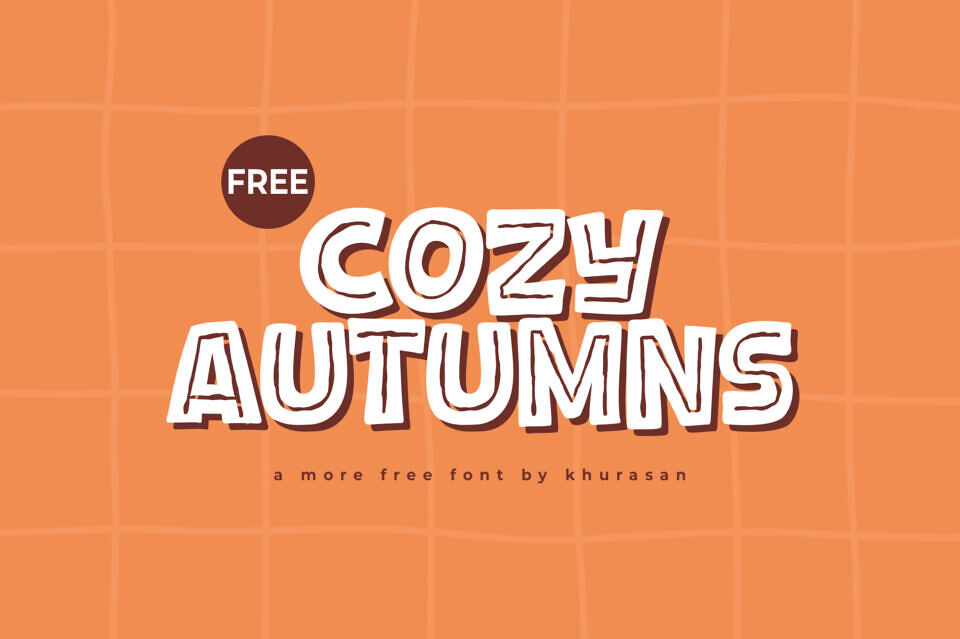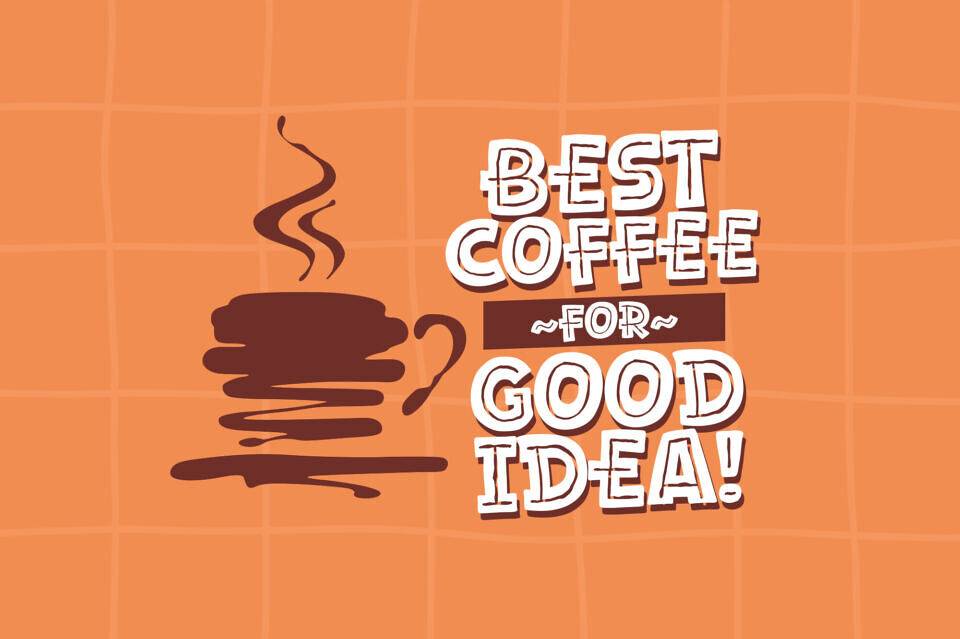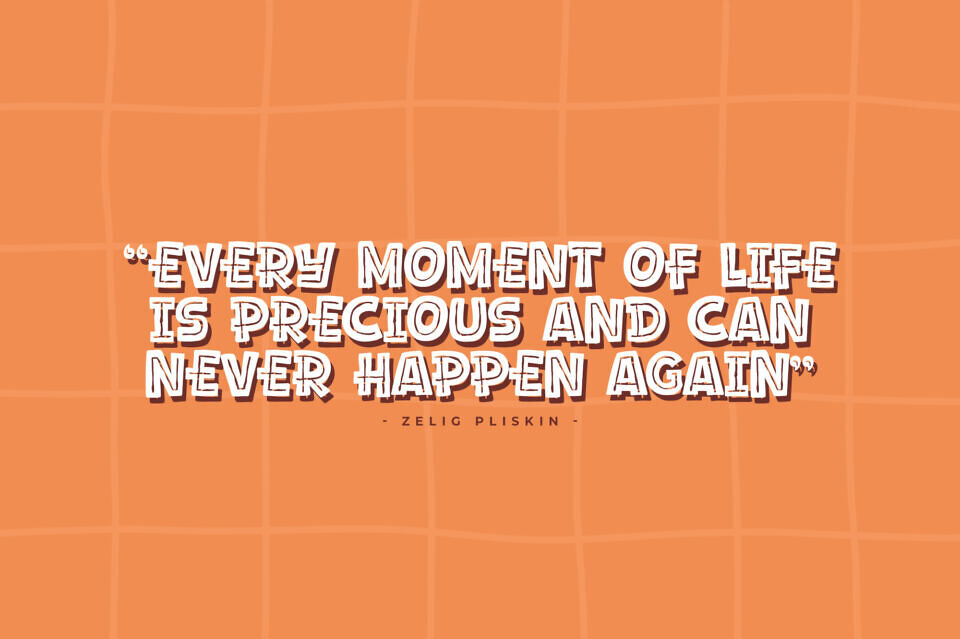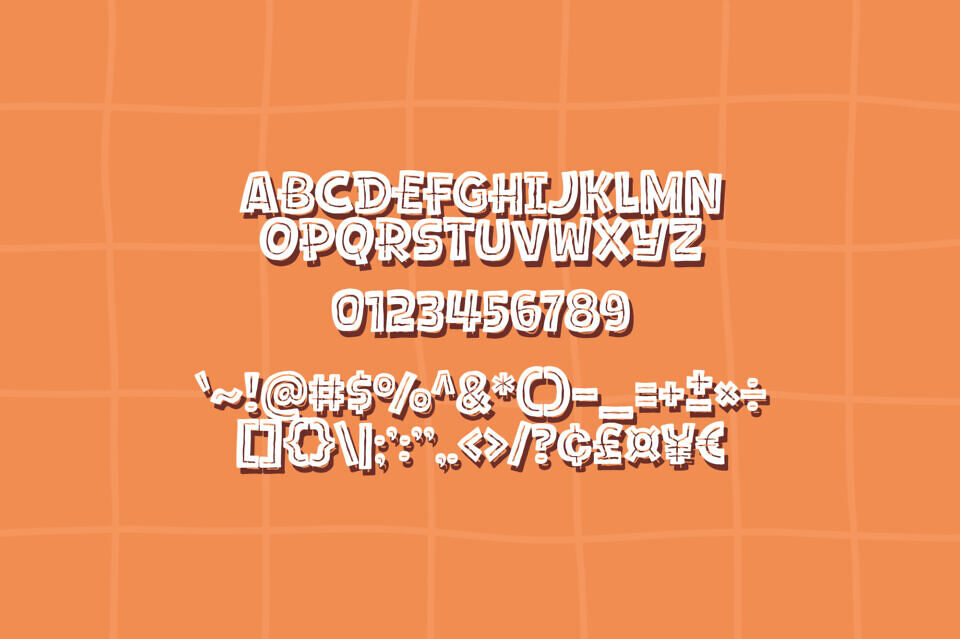
Cozy Autumns is a free modern and cute display font perfect for posters, logos, magazines, book covers, banners, and many more! Get this amazing font, and use it to create lovely designs.